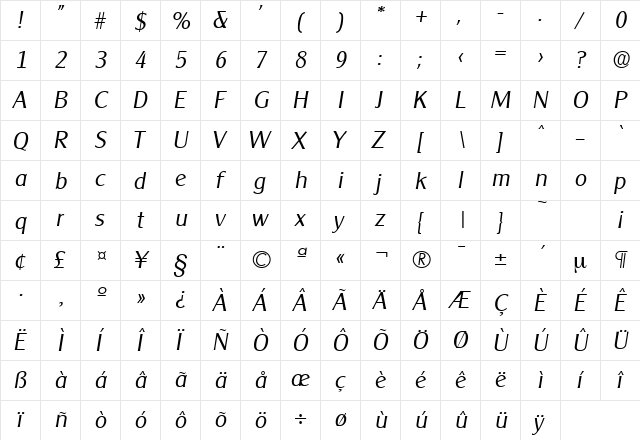
Cleargothic-Serial-Light RegularItalic Font Preview
Design Context for Cleargothic-Serial-Light Typeface
Cleargothic-Serial-Light has the quiet confidence of well-executed sans-serif typography: versatile, unobtrusive, and dependable at any size. Its italic angle brings a sense of urgency and motion to the letterforms. Its slender proportions lend an understated elegance to any composition.
Ideal for fashion and beauty branding, minimal editorial layouts, and premium digital experiences.
Font Pairing: Pair Cleargothic-Serial-Light with a medium or bold serif for headlines — the weight contrast creates an elegant, high-end feel.
Pro Tip: Avoid using Cleargothic-Serial-Light at very small sizes where its slender strokes can disappear. It performs best at medium to large sizes.